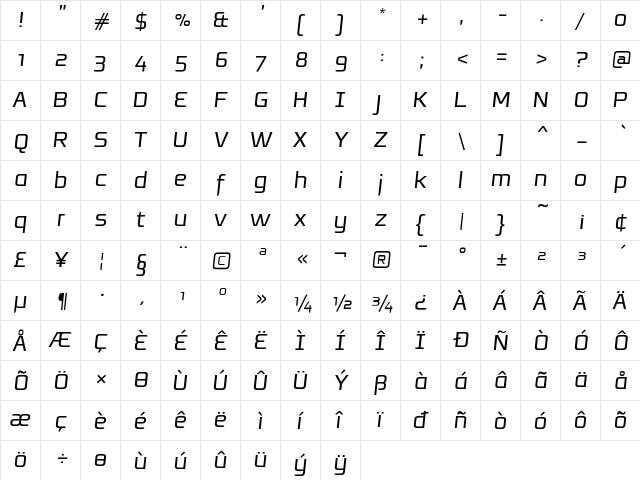
Resea Italic
Design Context for Resea Typeface
Resea offers clean, dependable letterforms without strong stylistic allegiance, making it a practical choice for designers who need flexibility. The slanted form adds forward momentum and visual energy.
Pro Tip: Try Resea for annotation and caption copy alongside an upright companion — the contrast in angle creates a dynamic but ordered typographic system.